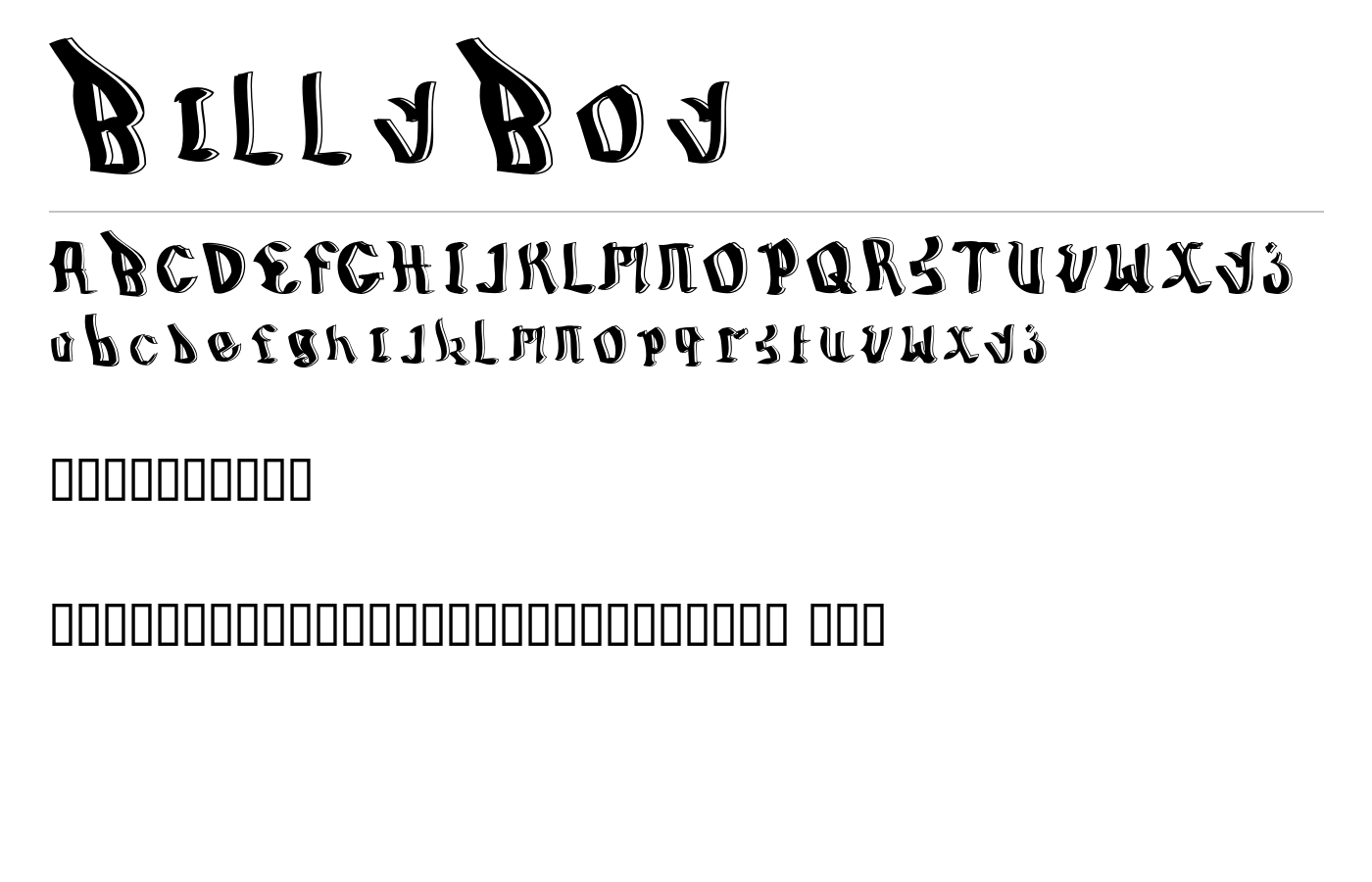
BillyBoy Font is a bold, decorative serif typeface with a playful and quirky character. Its highly stylized letterforms feature thick, uneven strokes with sharp, angular serifs and an eye-catching contrast between thick and thin elements, giving it a vintage and artistic vibe. Ideal for creative headlines, logos, and packaging, this font adds a distinctive, energetic personality that stands out in branding and display uses.
BillyBoy Font
About BillyBoy Font